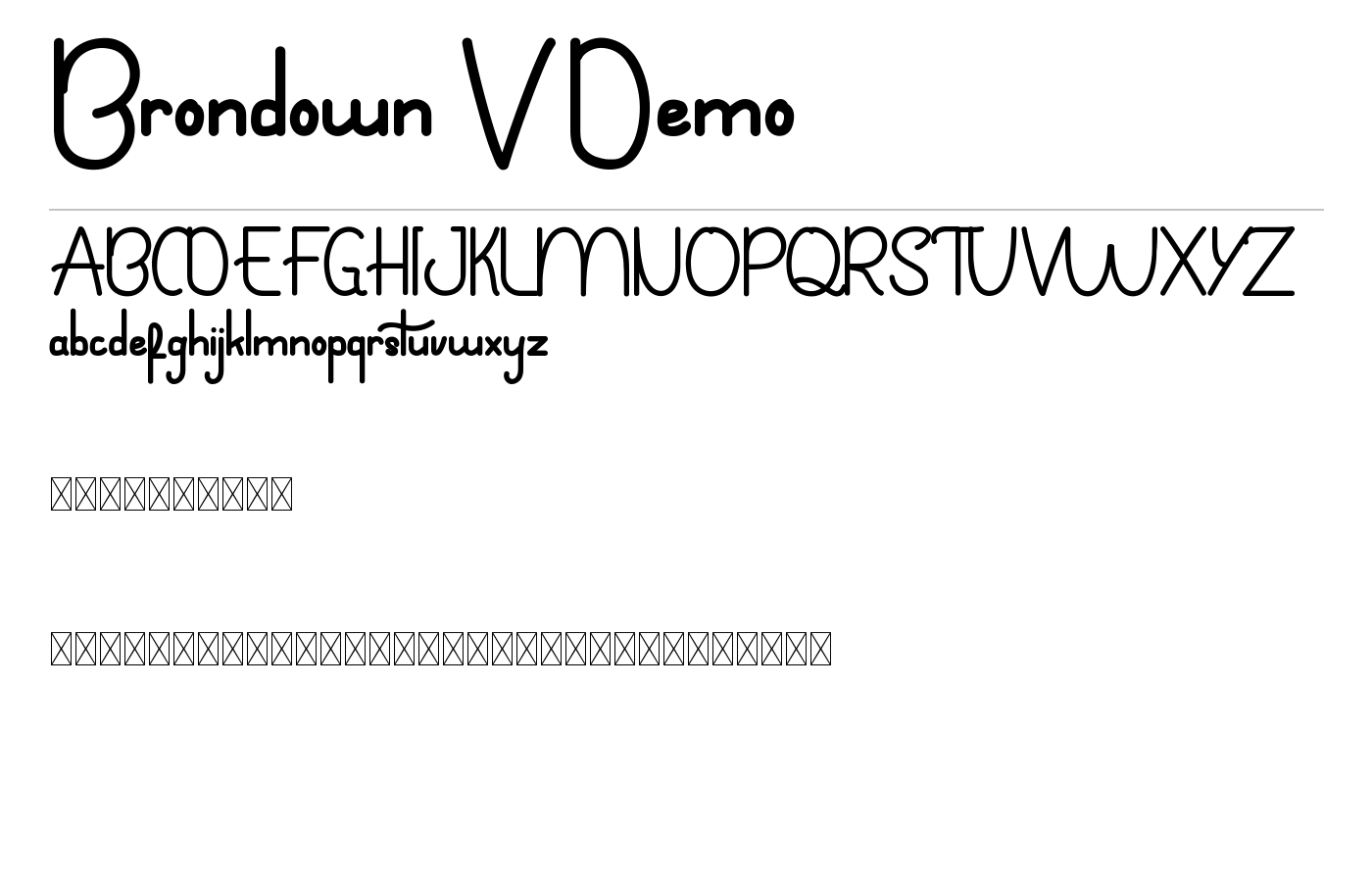
Brondown V Demo is a playful, hand-drawn sans serif font with a light weight and a tall, narrow appearance. Its quirky, rounded letterforms and lively strokes give it a fun, informal personality, making it ideal for creative projects, children’s materials, or casual branding. This font works best in headlines, logos, and invitations where a unique, friendly touch is desired.
Brondown V Demo Font
About Brondown V Demo Font
| Font family | Brondown V Demo Font |
| Designer | Muhammad Lukman F & Suci Anita |